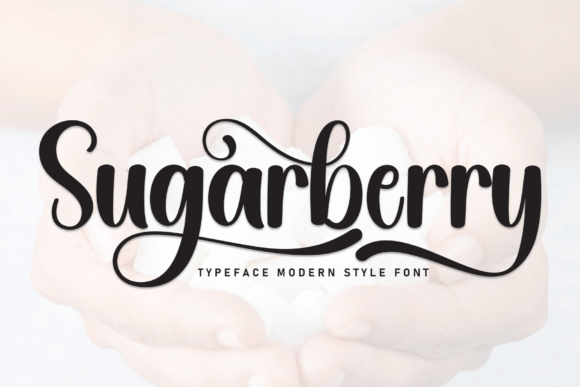
Journey into the whimsical world of Sugarberry Font, an enchanting script typeface that captivates the eye with its graceful curves and playful charm. Created by the esteemed Roronoa zoro.S.P.D., this font is a masterpiece of digital artistry, designed to bring a touch of magic to your creative projects.
With its cascading loops, delicate strokes, and alluring flourishes, Sugarberry Font exudes an air of elegance and sophistication. Its captivating design is sure to leave a lasting impression on your audience, making it the perfect choice for a wide range of applications.
Whether you're designing a personal invitation, a captivating social media post, or an eye-catching watermark, Sugarberry Font will add a touch of whimsy and enchantment to your work. Its versatility extends to a plethora of creative endeavors, including crafting heartfelt cards, adorning logos with a touch of artistry, and creating stunning visuals for marketing materials.
Step into a realm of creativity like no other with Sugarberry Font. Let its enchanting curves and delightful details transport you to a world of imagination, where your designs take flight. Experience the joy of creating with a font that captures the essence of romance, playfulness, and wonder.